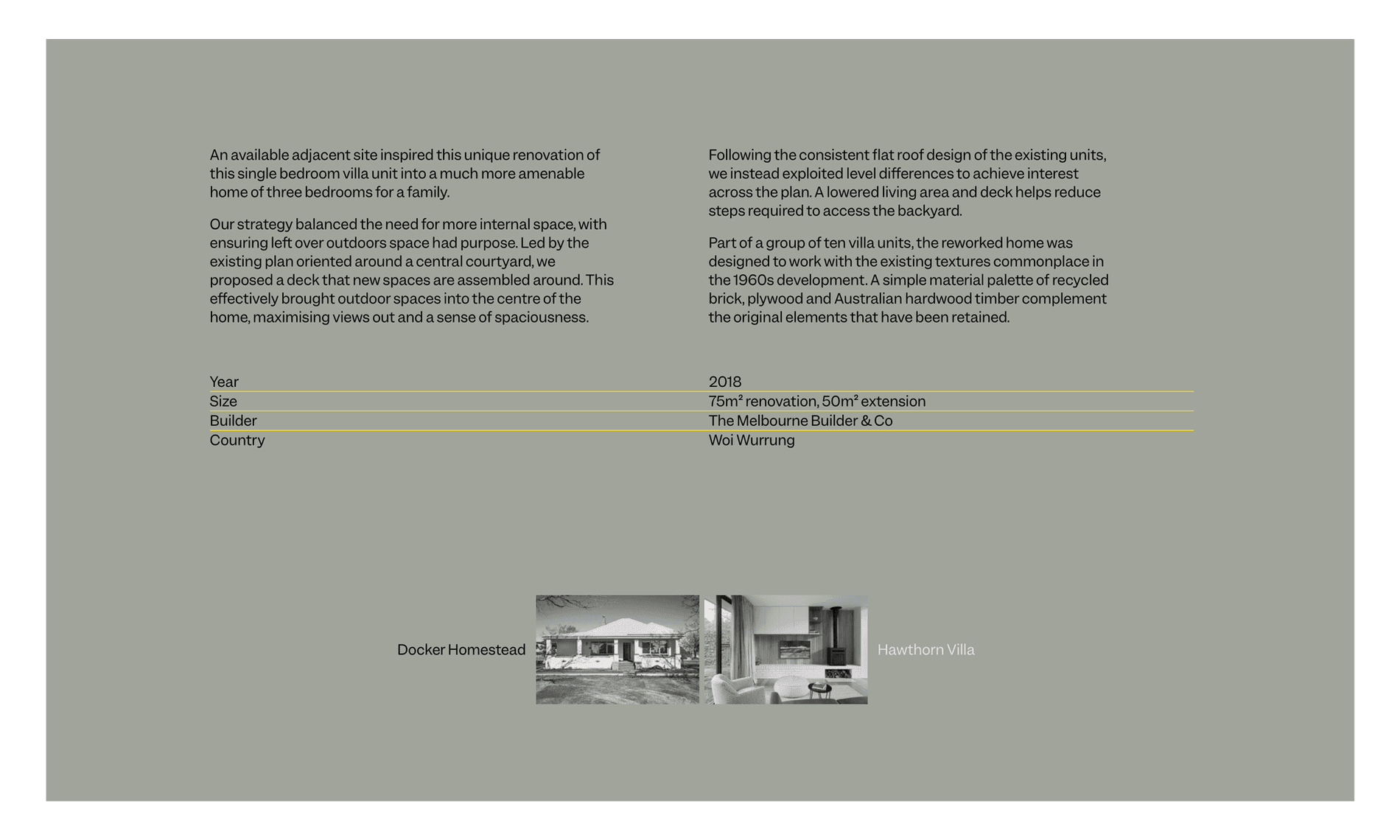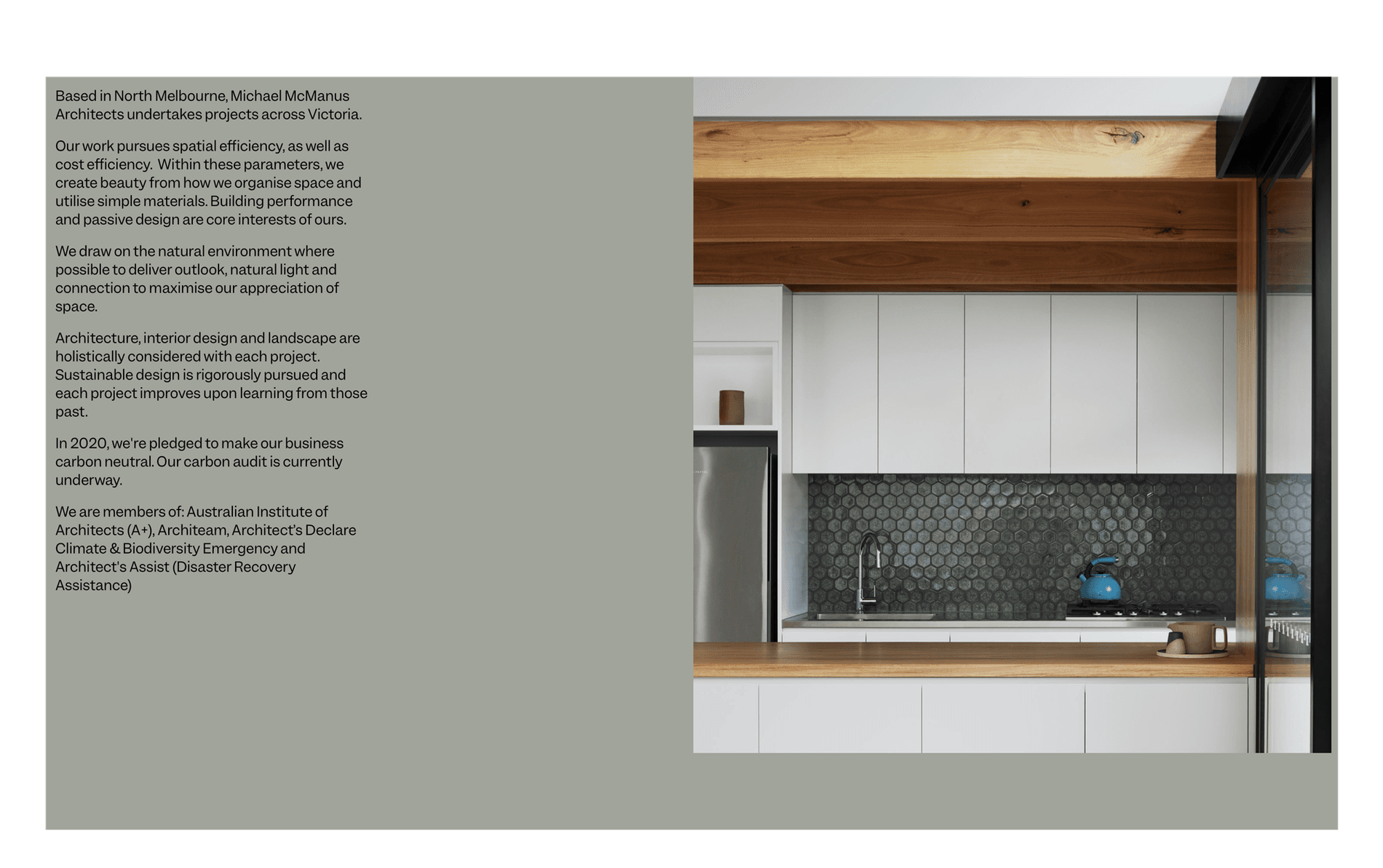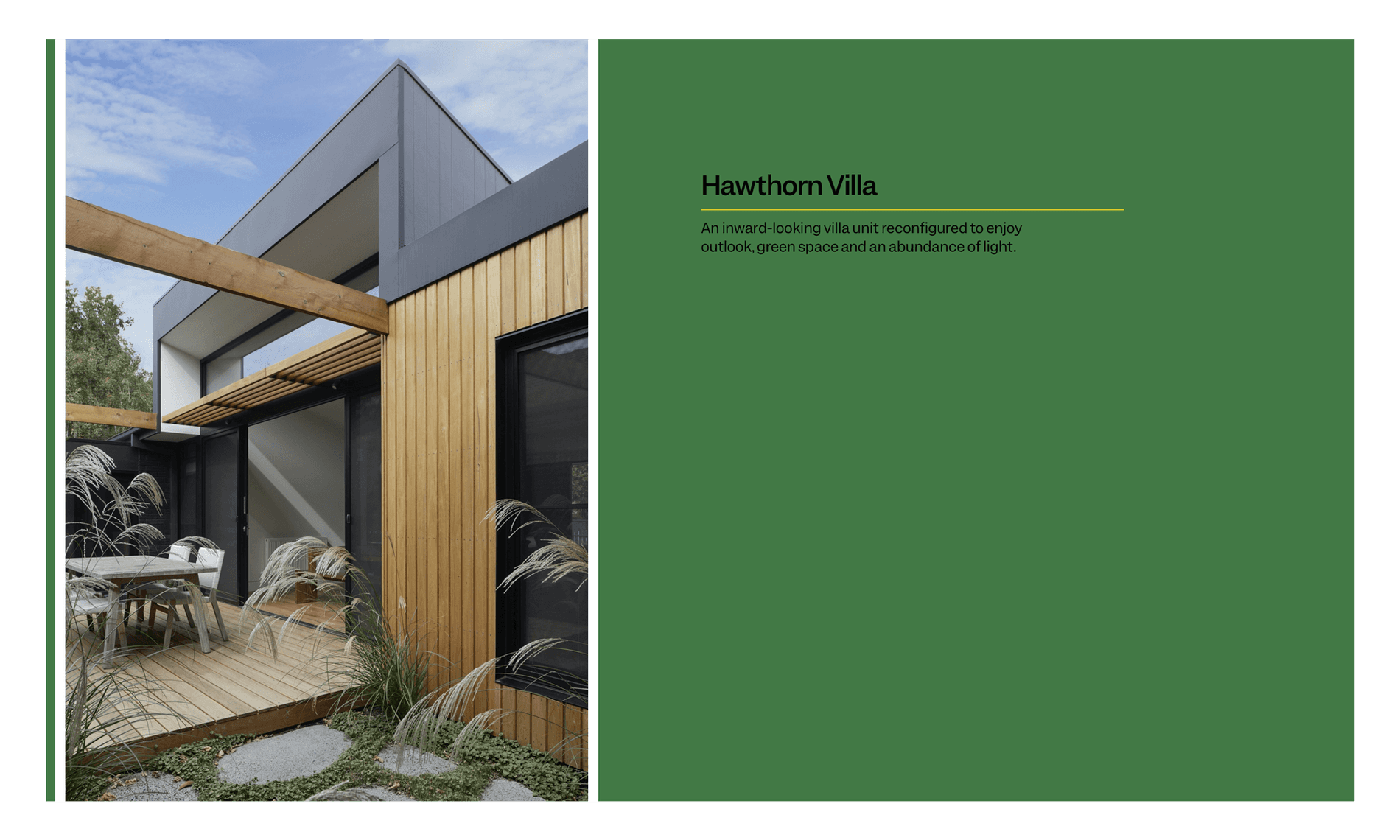
Michael McManus is a contemporary architecture firm that designs buildings that are a joy to inhabit and engage with their environment. The firm specializes in homes and smaller commercial and community projects with a personal touch.
The firm’s website brings together earthy colors that fade in and out while paging through beautiful photography of each custom project. The main logotype and navigation includes Garnett with slight adjustments in the tails of the ‘a’ and ‘t’, while the rest of the entire website uses Garnett Medium for subheads and Garnett Regular to detail each project’s story.
Typeface:Garnett